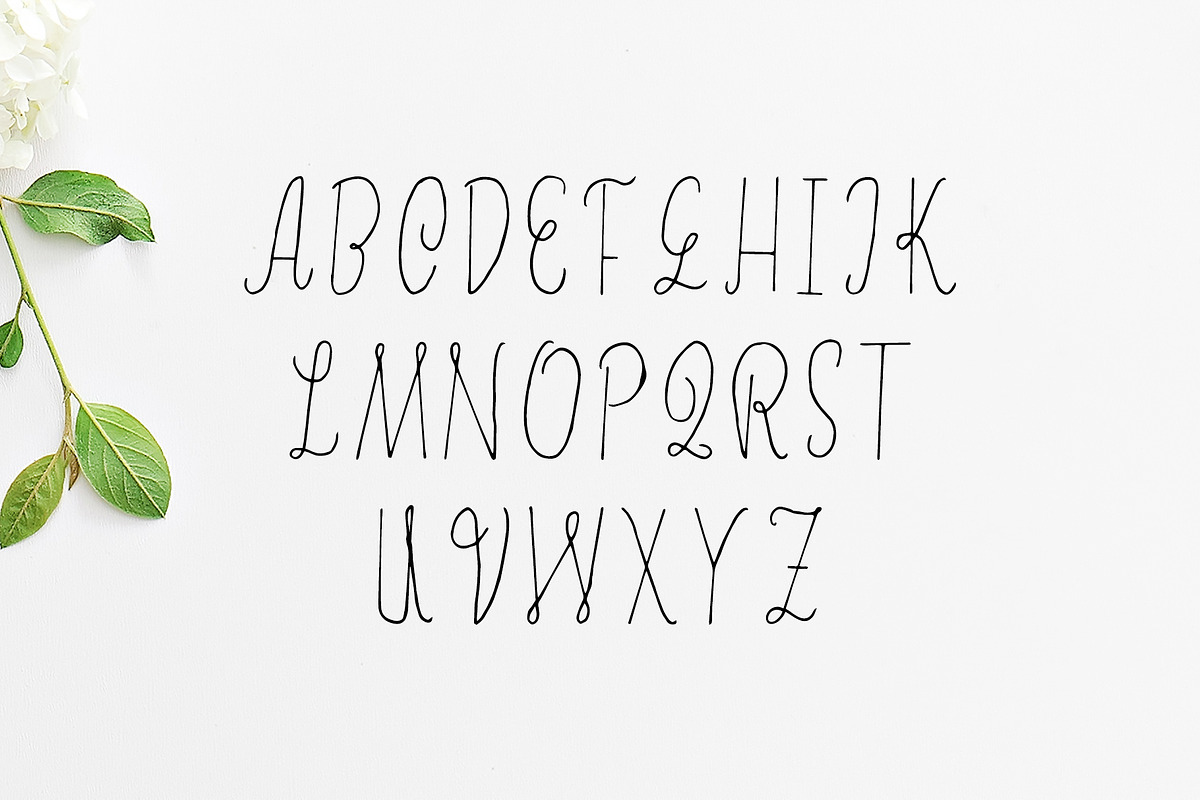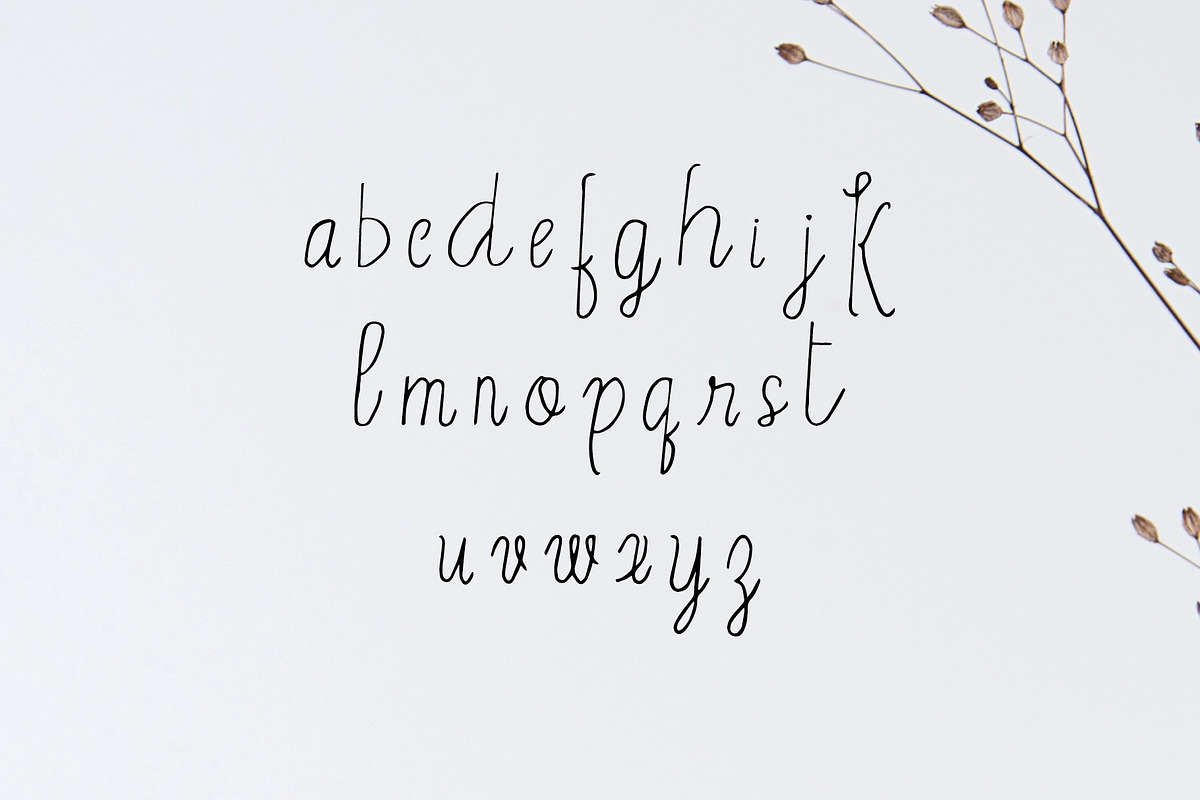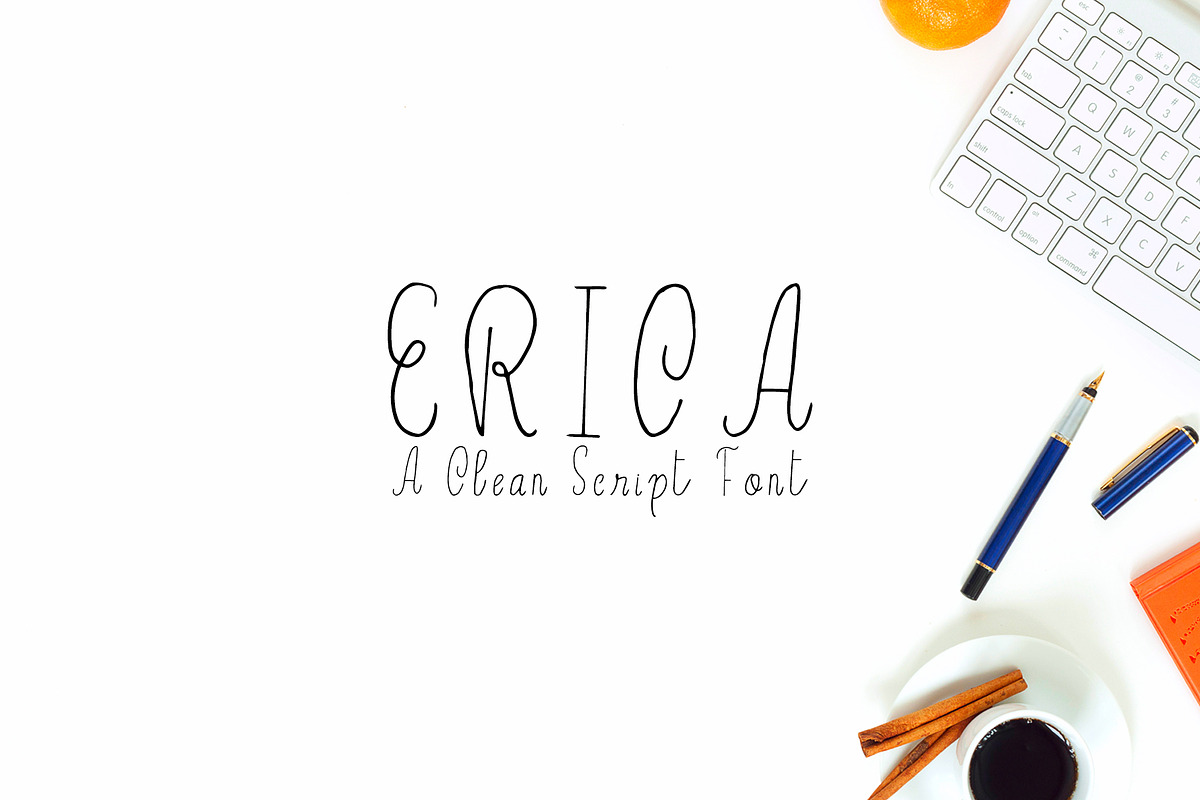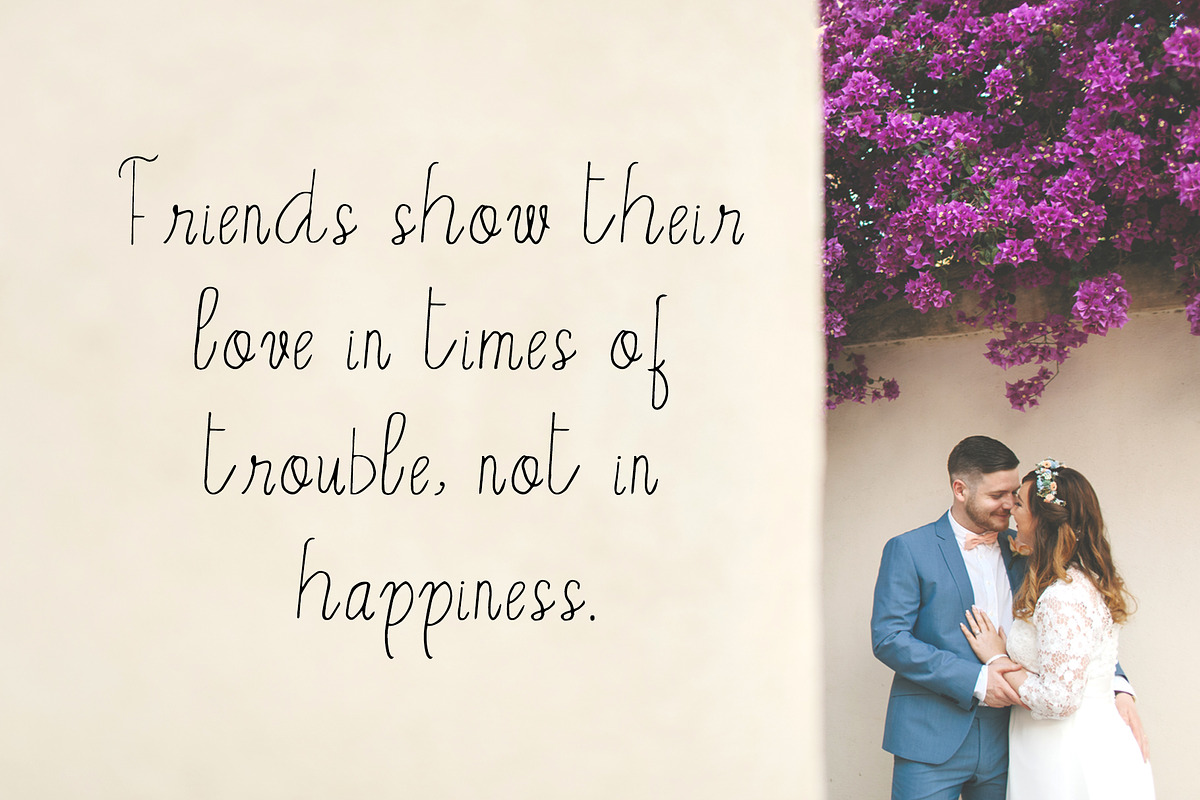
Erica Script Font
Erica Script Font by Creativetacos is a font selected for branding, posters, packaging, typography.
- Erica is a beautiful handwritten font which contains 1 weight and that is specifically designed for minimal projects.
Why Erica Script Font is worth a look
Erica Script Font by Creativetacos fits naturally into Branding, posters, packaging, typography.